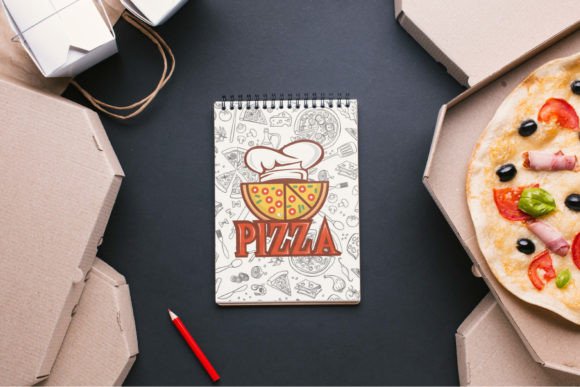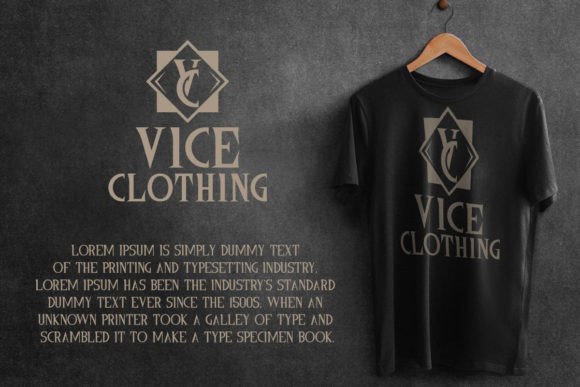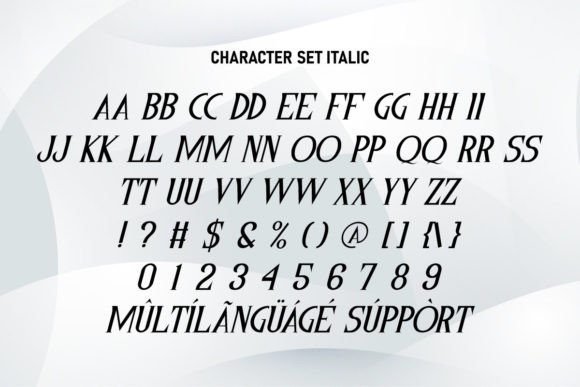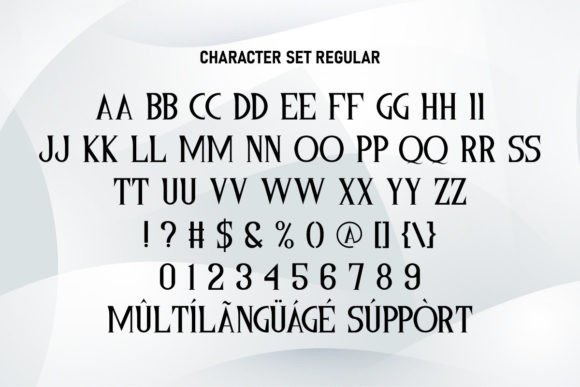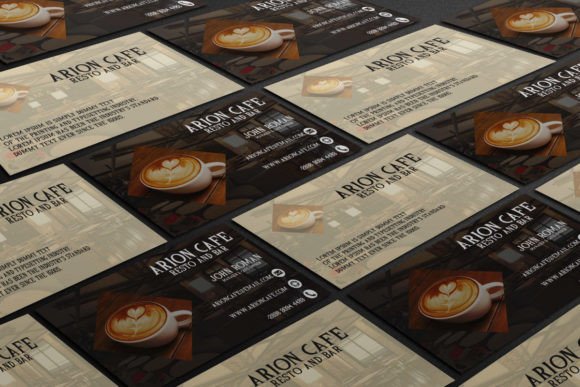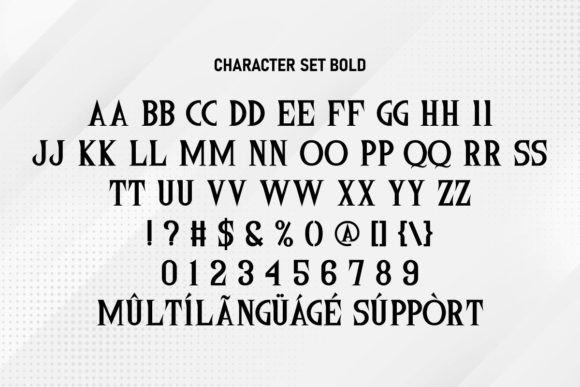
Introduction to Morristown Font Font
Fonts play a crucial role in design, and the Morristown Font font is a typeface that brings both character and versatility to any project. Whether you’re working on a branding project, a website, or a print design, the Morristown Font font offers a unique style that can elevate your work.
Morristown is a modern and sharp serif font with a unique look that will make your designs stand out.
This font is suitable for a wide range of projects such as headlines, posters, apparel, blog posts, advertisements, marketing materials, branding, packaging, or anything that requires a stylish touch .
Key Features of Morristown Font Font
Why Choose Morristown Font Font?
The Morristown Font font is more than just a typeface – it’s a design tool that helps you communicate your message with style and clarity. Its unique character set and versatile design make it suitable for a wide range of applications, from elegant invitations to bold headlines.
With its carefully crafted letterforms and balanced proportions, the Morristown Font font ensures readability and visual appeal across all mediums.
What makes Morristown Font font special?
The Morristown Font font stands out with its unique design, exceptional readability, and versatility across various design applications.